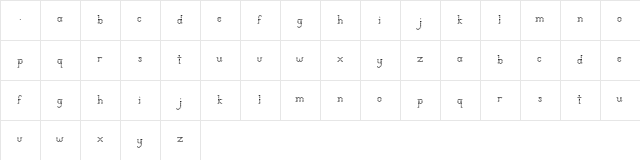
Javaboks Regular
| Designer | HelloCreature |
Design Context for Javaboks Typeface
Javaboks is a composed and adaptable typeface that performs quietly and consistently across a wide range of design contexts.